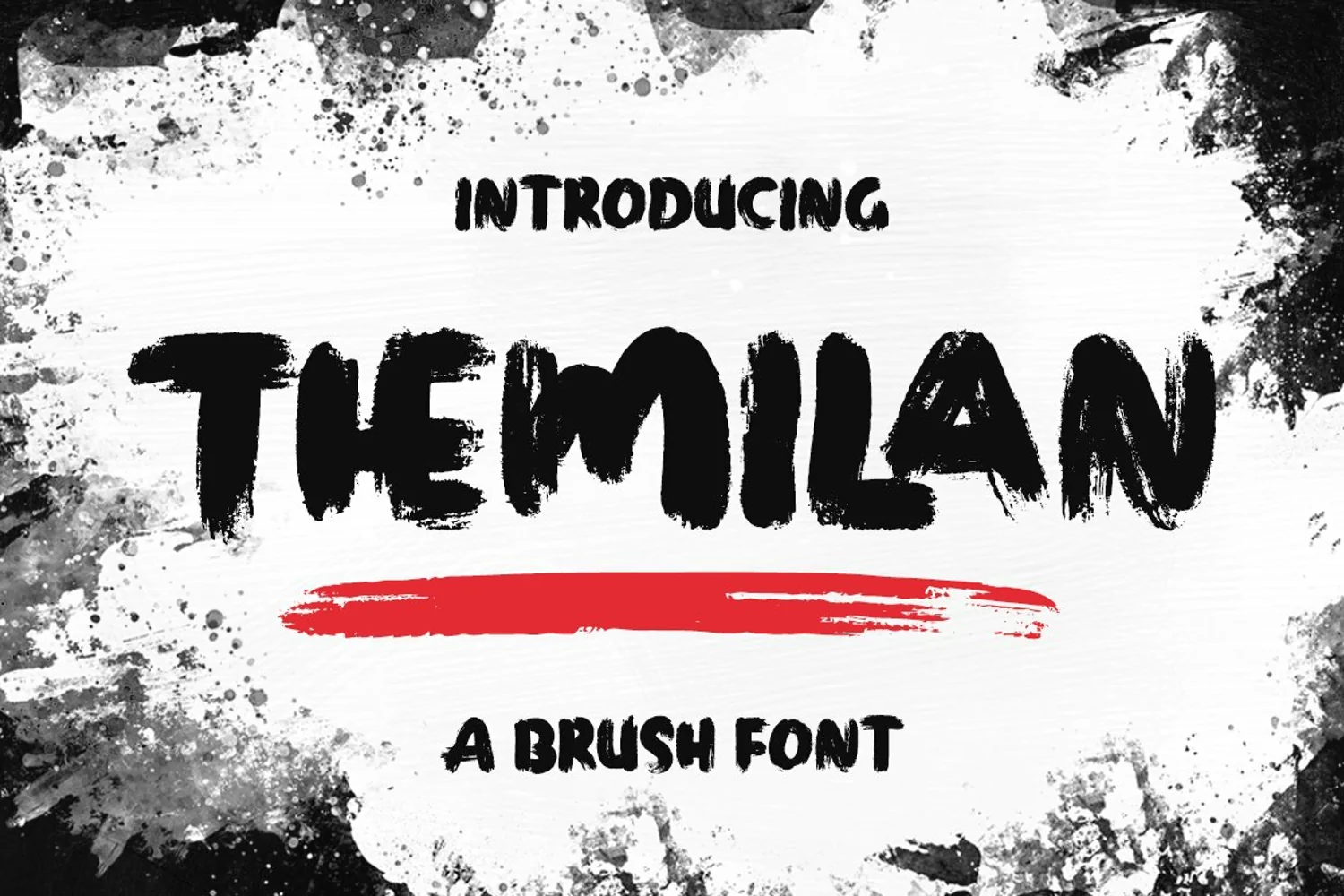
Themilan
Themilan is a super casual handwritten script with a detailed brush texture, and a unique all-caps sans serif font, it also has dashing strokes across all letters to add style to your designs. It can be used for various purposes. such as titles, signatures, letterheads, nameplates, labels, newsletters, posters, logos, correspondence, wedding invitations, badges, etc.